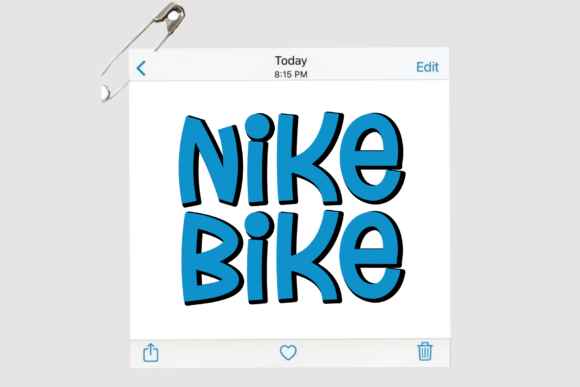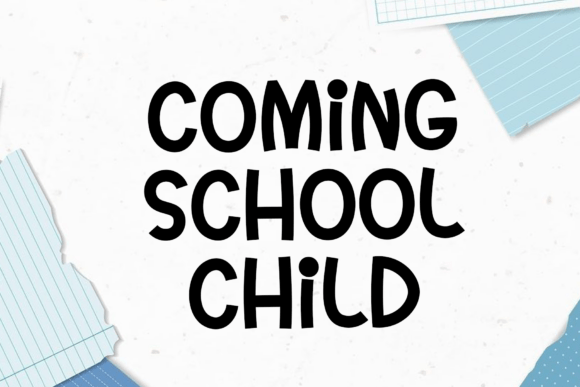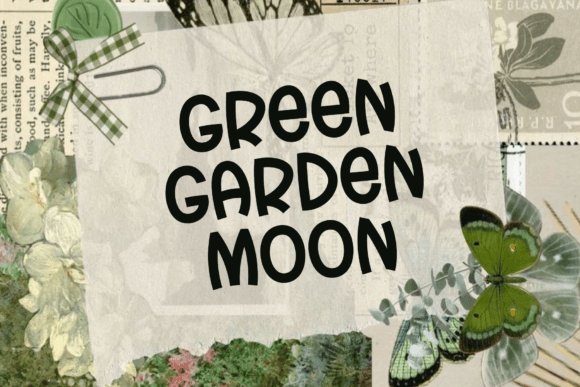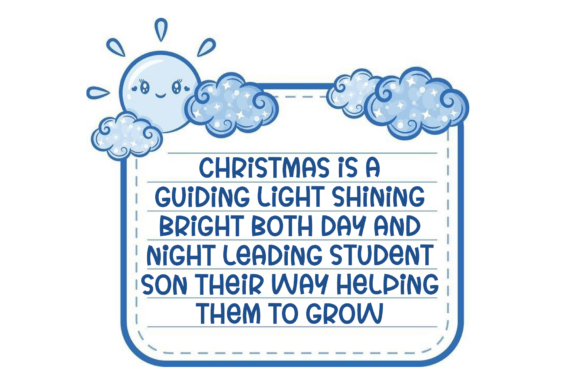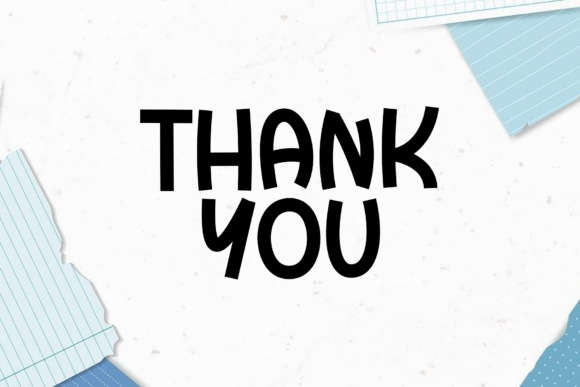
Introduction to Nike Bike Font
Remember that moment when you’re working on a creative project and you’re struggling to find the perfect font to give it that extra oomph? The font that will elevate your design, make it stand out, and leave a lasting impression on your audience. For designers like you, finding the right font can be a game-changer. That’s exactly what we’re excited to share with you today – the Nike Bike Font.
This high-quality font is a designer’s dream come true, offering clean connections that ensure excellent legibility. Whether you’re working on custom sublimation designs, boutique branding, or personalized gifts, Nike Bike Font is the perfect design resource to take your projects to the next level. And the best part? You can download it for free, making it an accessible and valuable asset for designers of all levels.
Nike Bike Font
- High-quality design resource ideal for creative projects, including graphic designs and digital art.
- Features a transparent background, allowing for easy integration into various design elements.
- Unique characteristics include a bold and modern aesthetic, making it perfect for sports and action-themed designs.
Honest Review: Nike Bike Font
I recently came across the Nike Bike Font, and I must say it’s a great addition to any designer’s toolkit. This free download offers a high-quality, clean font that’s perfect for creative projects.
- ✨ High-quality design: The Nike Bike Font is well-crafted and looks great on any design project.
- ✨ Transparent background: The font has a transparent background, making it easy to layer and composite with other design elements.
- ✨ Versatile: The Nike Bike Font is suitable for a wide range of design applications, from logos to typography-based projects.
- ⚠️ Limited character set: The Nike Bike Font is a single font family, which may limit its use in certain situations.
- ⚠️ Not suitable for small text: The font is designed for larger text sizes, and may not be ideal for small text-based projects.
Overall, the Nike Bike Font is a solid design resource that’s definitely worth checking out. Its high-quality design and versatility make it a great addition to any designer’s toolkit. While it has some limitations, I think the benefits outweigh the drawbacks.
Nike Bike Font
The Nike Bike Font is a high-quality design resource that can be used for various creative projects. It’s available for free download and features a transparent background, making it versatile and easy to incorporate into your designs.
Tips for Getting the Most Out of Nike Bike Font
Here are some tips for getting the most out of the Nike Bike Font:
- Use the font in combination with other design elements, such as images and shapes, to create a cohesive look.
- Consider using the font in a bold or italic style to add emphasis to your text.
Common Use Cases for Nike Bike Font
The Nike Bike Font is suitable for a variety of creative projects, including:
- Marketing materials, such as broch
By incorporating the Nike Bike Font into your creative project, you’ll be able to unlock new possibilities for expression and innovation. Its versatility and modern aesthetic make it an ideal choice for a wide range of applications, from branding and advertising to digital media and print materials. So why not download the Nike Bike Font today and experience the power of high-quality design for yourself? We’re confident that you’ll be impressed by its capabilities and eager to share it with your peers and colleagues.